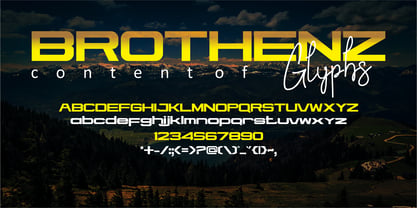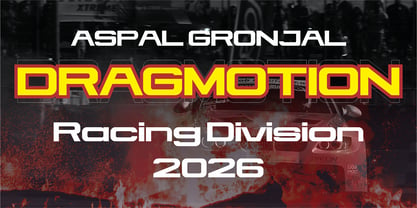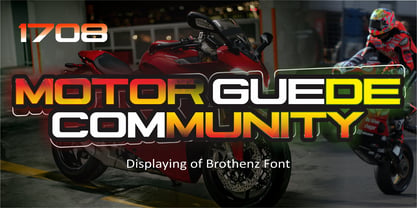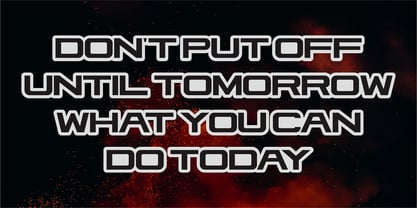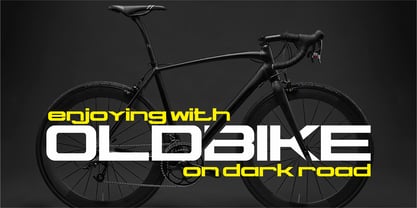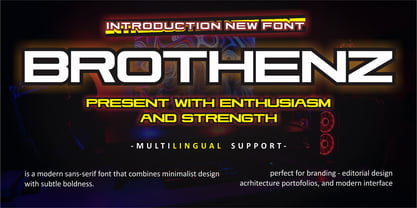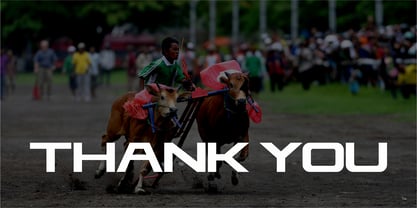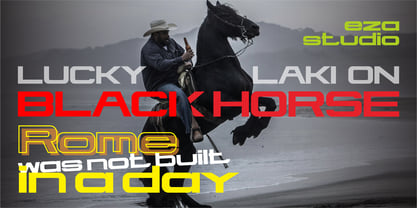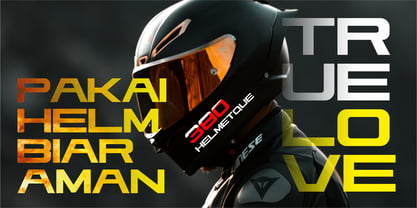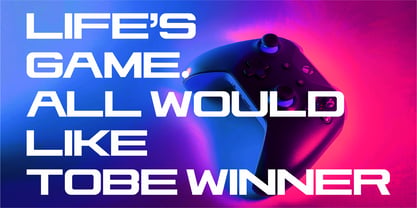
Brothenz
von Eza Studio
Die Schriftfamilie Brothenz wurde von Aziz Mirza entworfen und von Eza Studio veröffentlicht. Brothenz enthält 1 Stile. Mehr über diese Familie
BROTHENZ is a modern sans serif typeface designed with precision, clarity, and contemporary elegance in mind. Created for a clean yet distinctive visual appearance, Brothenz balances geometric structure with subtle character details, making it highly versatile across a wide range of design applications. Creating a striking impression, the Brothenz font is perfect for branding, editorial layouts, digital interfaces, packaging, and corporate identity systems. Its well-designed proportions, smooth curves, and confident letter forms ensure strong legibility while maintaining a refined and professional tone. Brothenz is perfect for designers seeking a typeface that feels modern, bold, and adaptable—a reliable foundation for minimalist compositions and expressive visual identities. A timeless sans serif for forward-looking designs.
Designer: Aziz Mirza
Foundry: Eza Studio